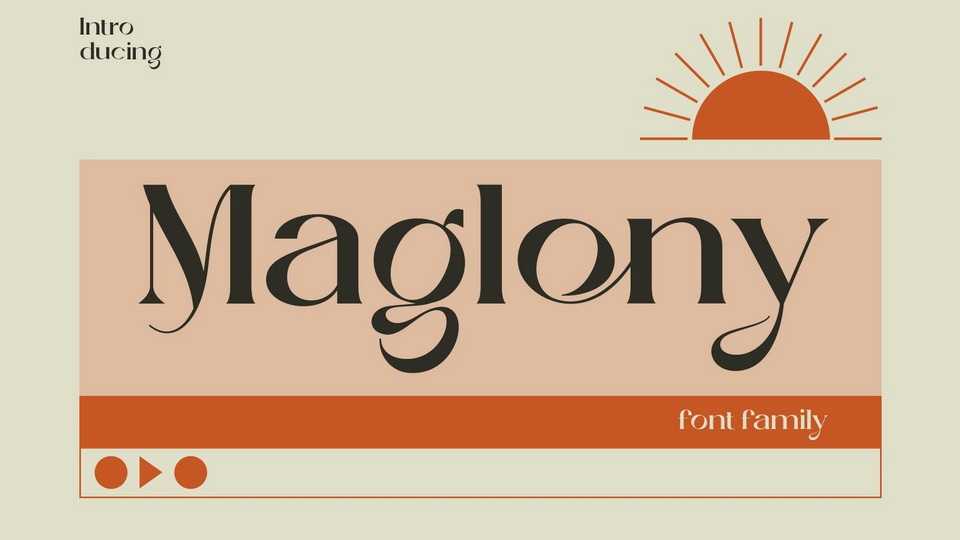
Download Maglony font, a fancy serif typeface that has a dynamic yet elegant serif style. The details of the shape of the Maglony font are very smooth and flow to create unique and beautiful curves.